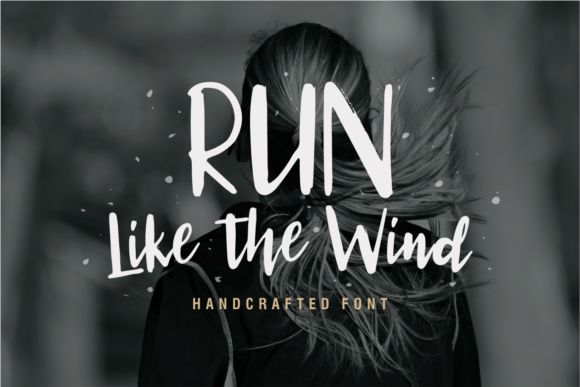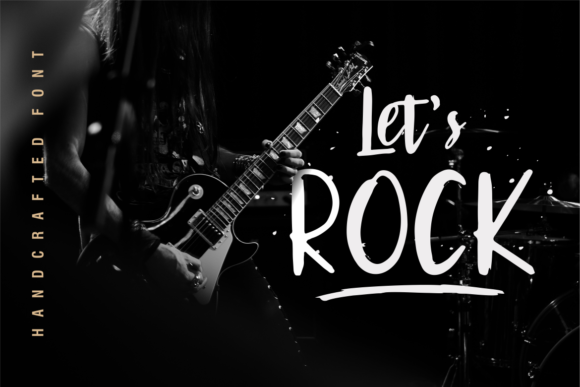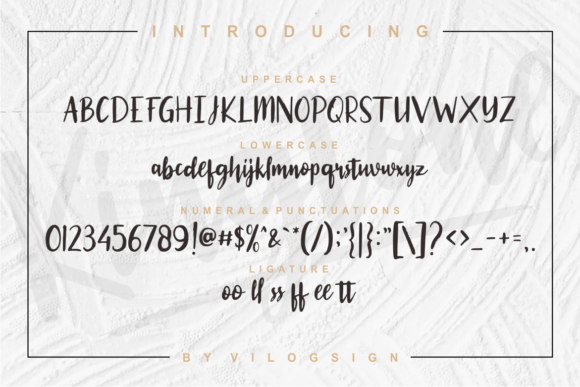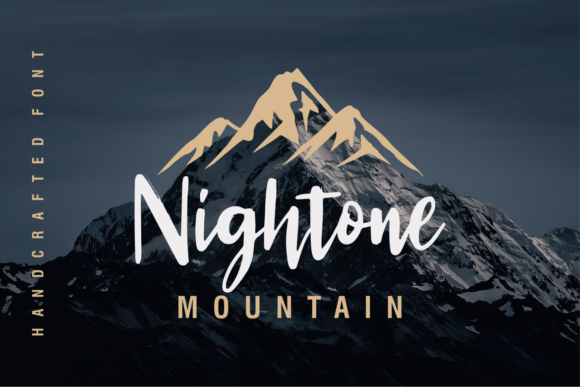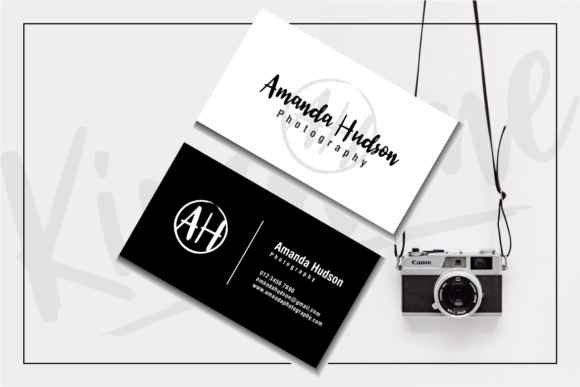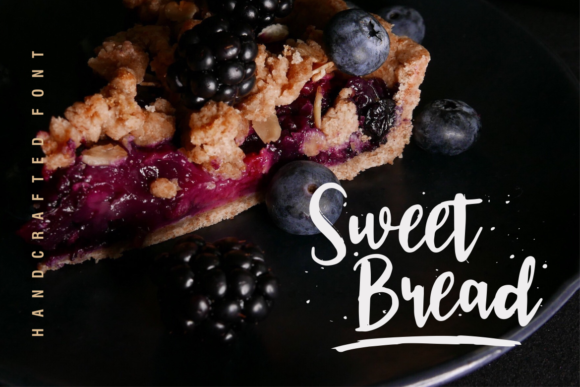
Kingtone Font
About Kingtone Font
Kingtone is a bold and strong handwritten font with heaps of personality! It will update any design project with an urban twist.